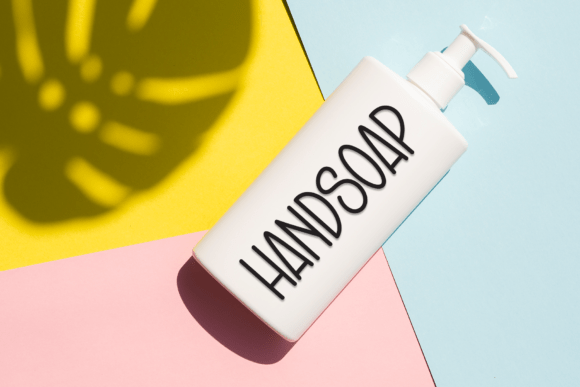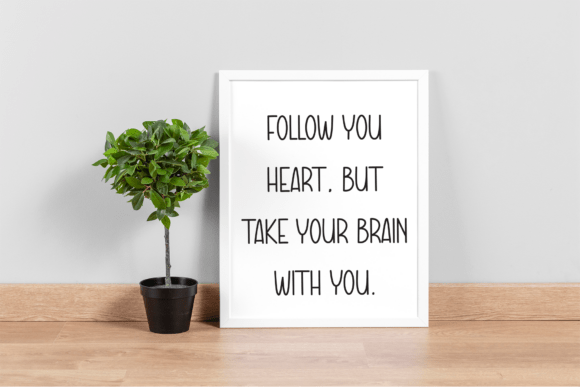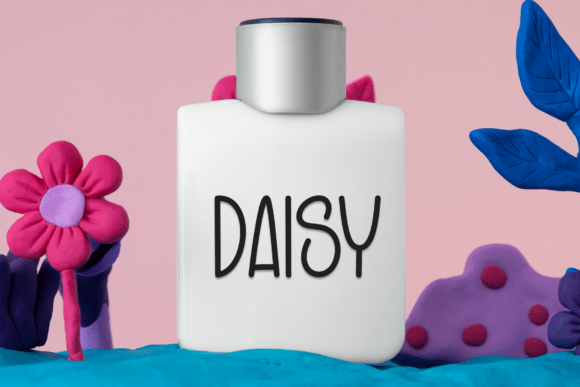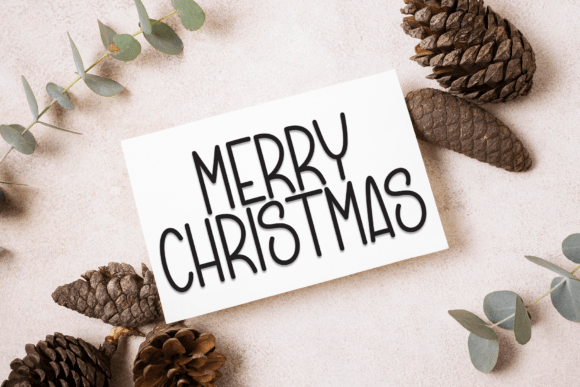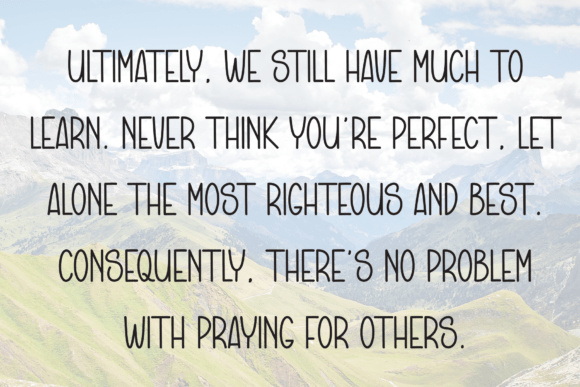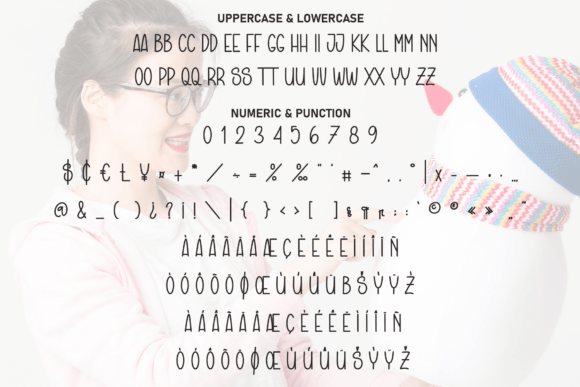
Introduction to Creative Snowgirls Font Font
Fonts play a crucial role in design, and the Creative Snowgirls Font font is a typeface that brings both character and versatility to any project. Whether you’re working on a branding project, a website, or a print design, the Creative Snowgirls Font font offers a unique style that can elevate your work.
Creative Snowgirls is a casual and neat display font that combines simplicity with a friendly, approachable vibe.
Featuring clean lines, balanced letterforms, and subtle rounded edges, it captures the essence of modern handwritten typography with a polished finish Ideal for branding, headlines, packaging, and digital content, it adds a warm and inviting touch to any design.
Key Features of Creative Snowgirls Font Font
Why Choose Creative Snowgirls Font Font?
The Creative Snowgirls Font font is more than just a typeface – it’s a design tool that helps you communicate your message with style and clarity. Its unique character set and versatile design make it suitable for a wide range of applications, from elegant invitations to bold headlines.
With its carefully crafted letterforms and balanced proportions, the Creative Snowgirls Font font ensures readability and visual appeal across all mediums.
What makes Creative Snowgirls Font font special?
The Creative Snowgirls Font font stands out with its unique design, exceptional readability, and versatility across various design applications.